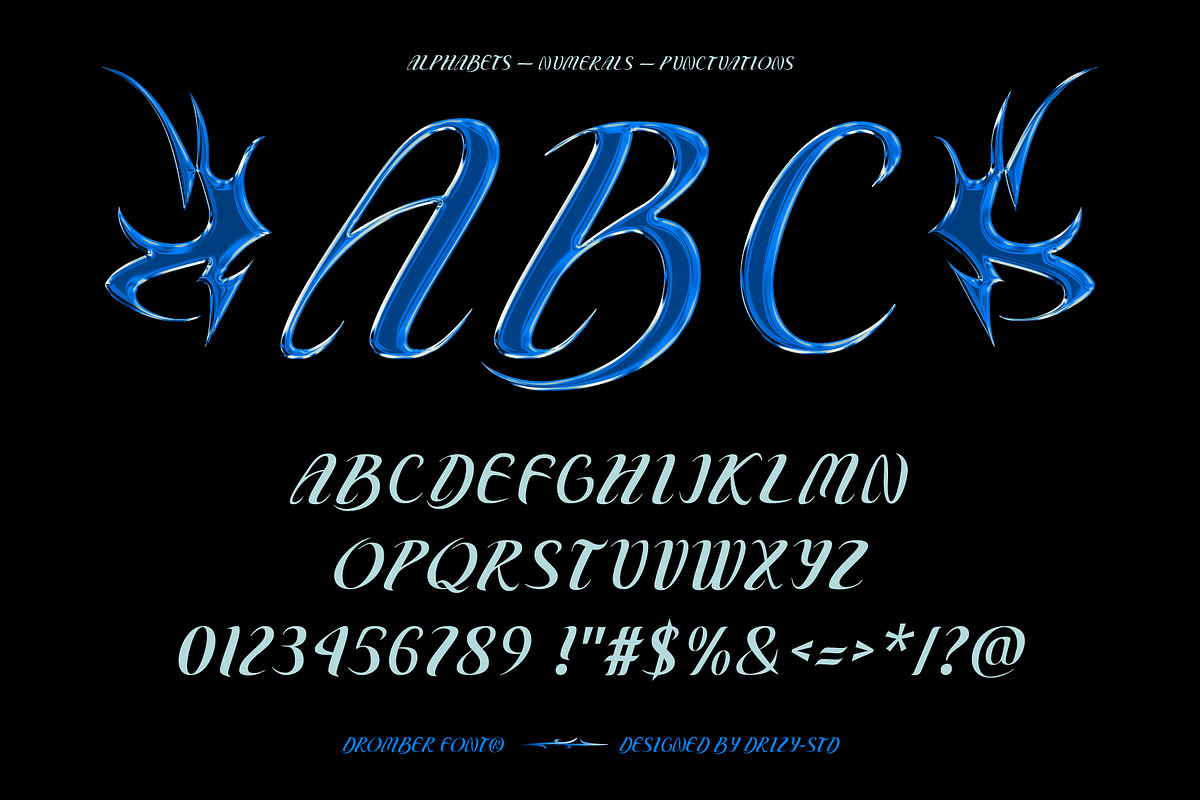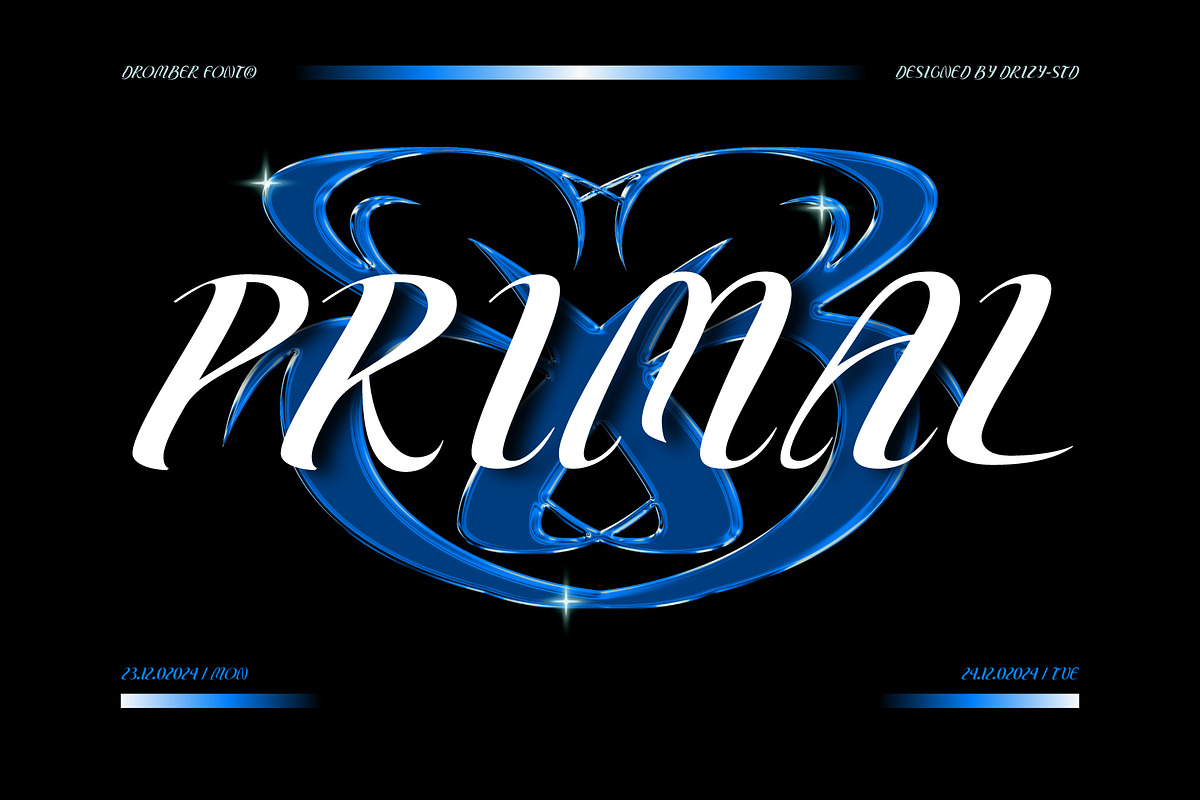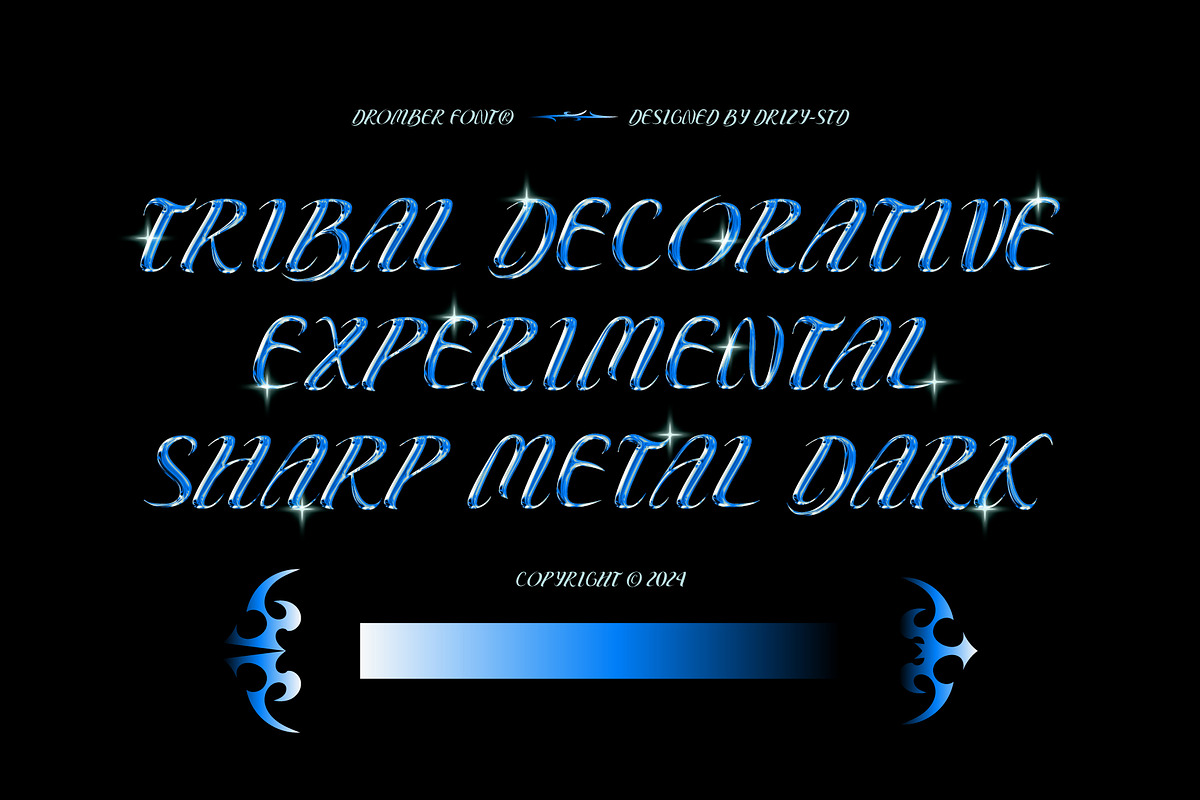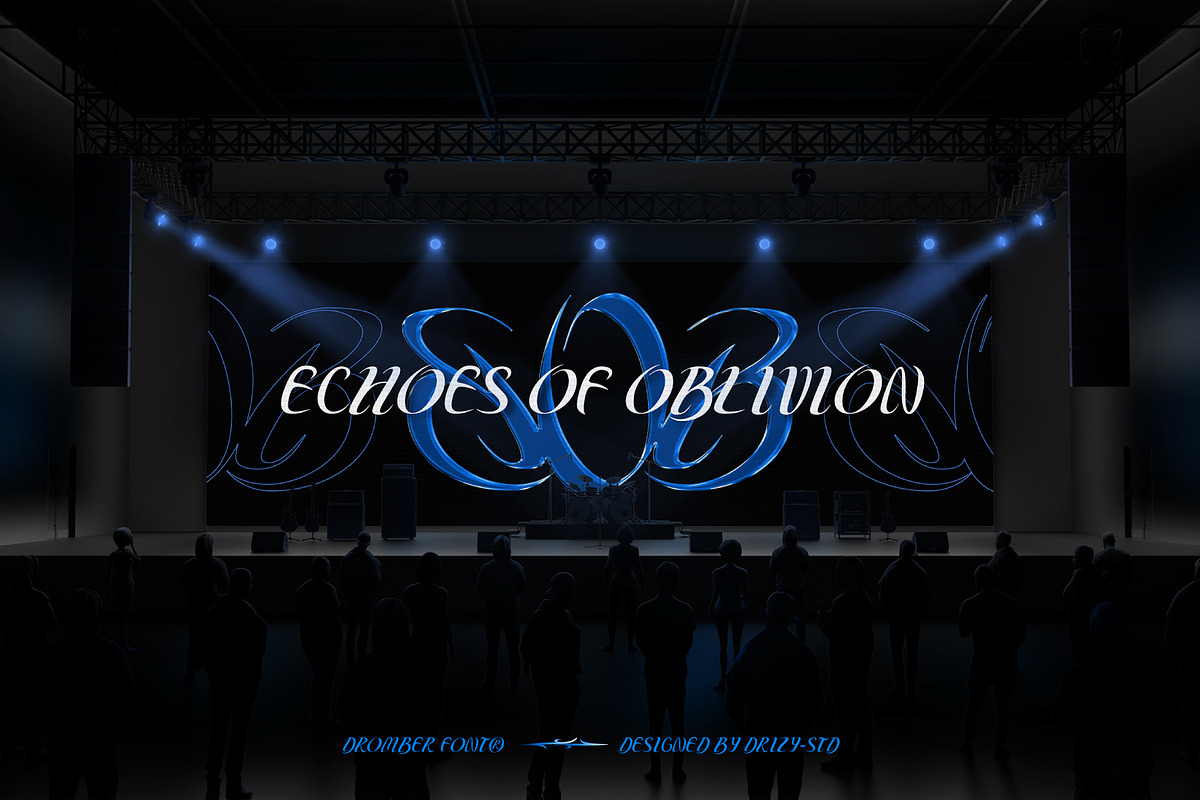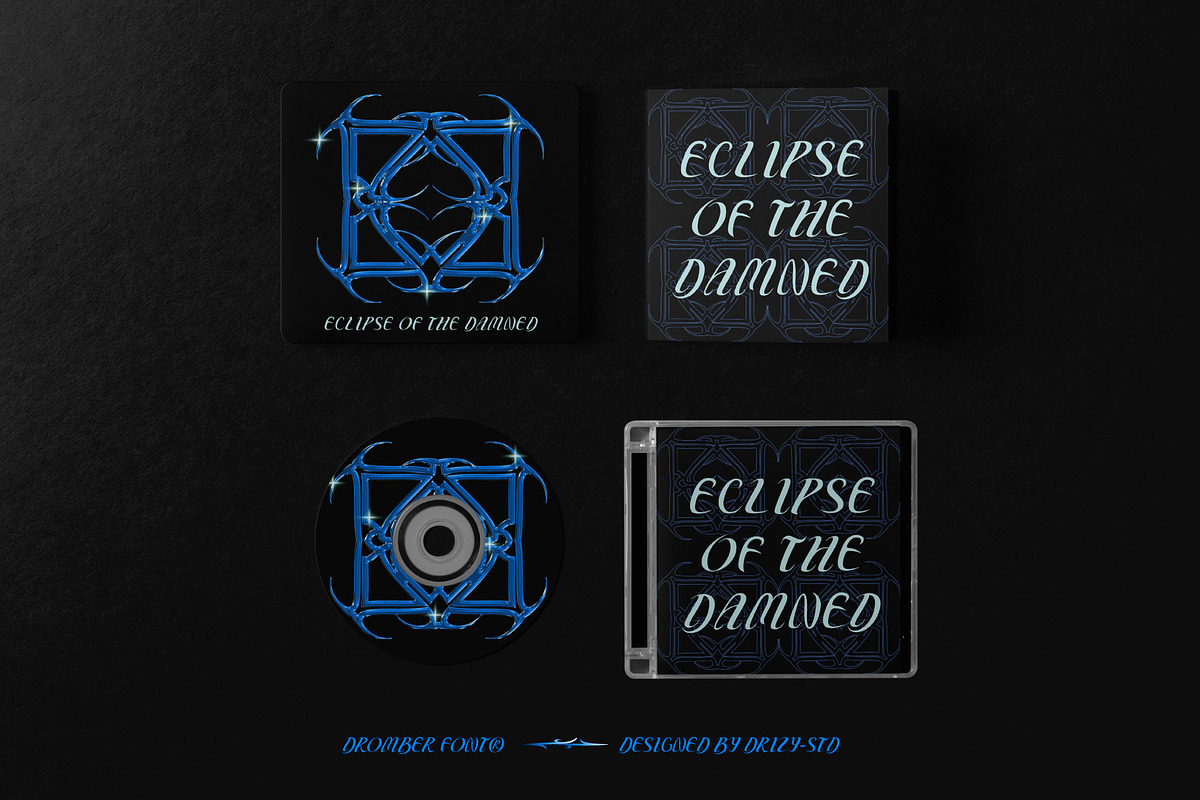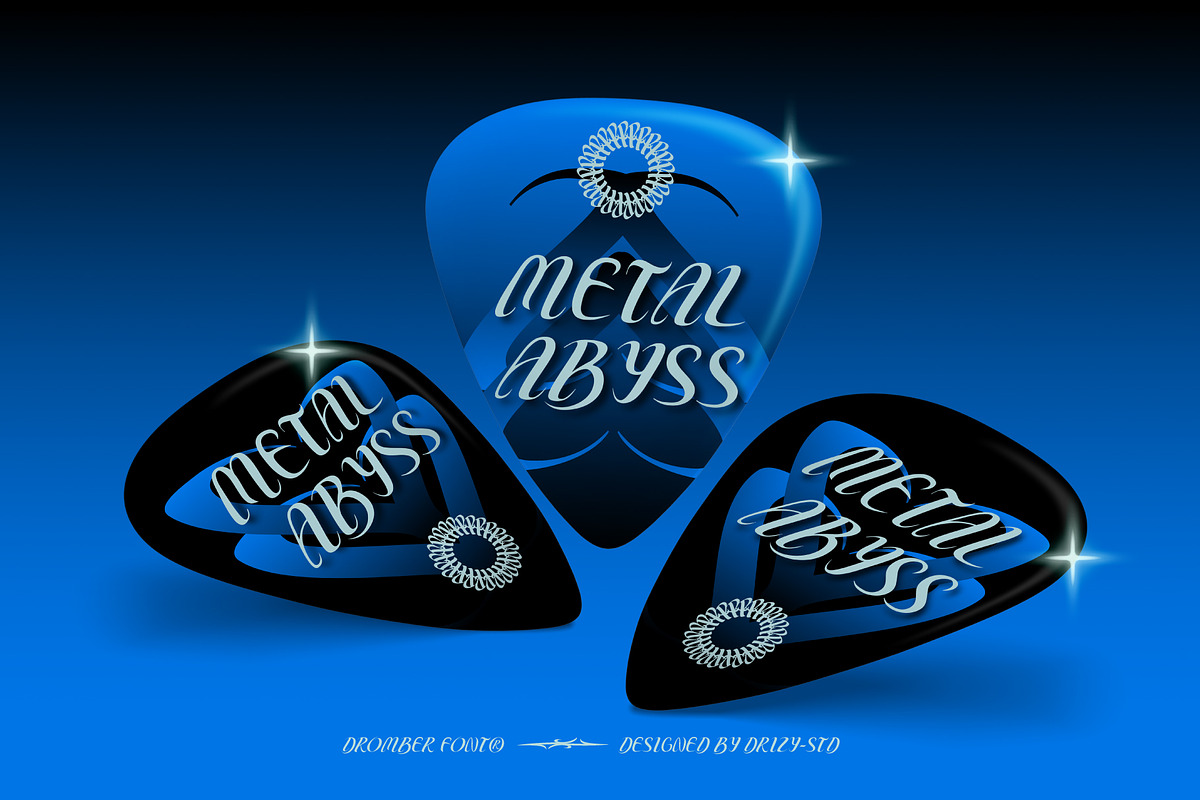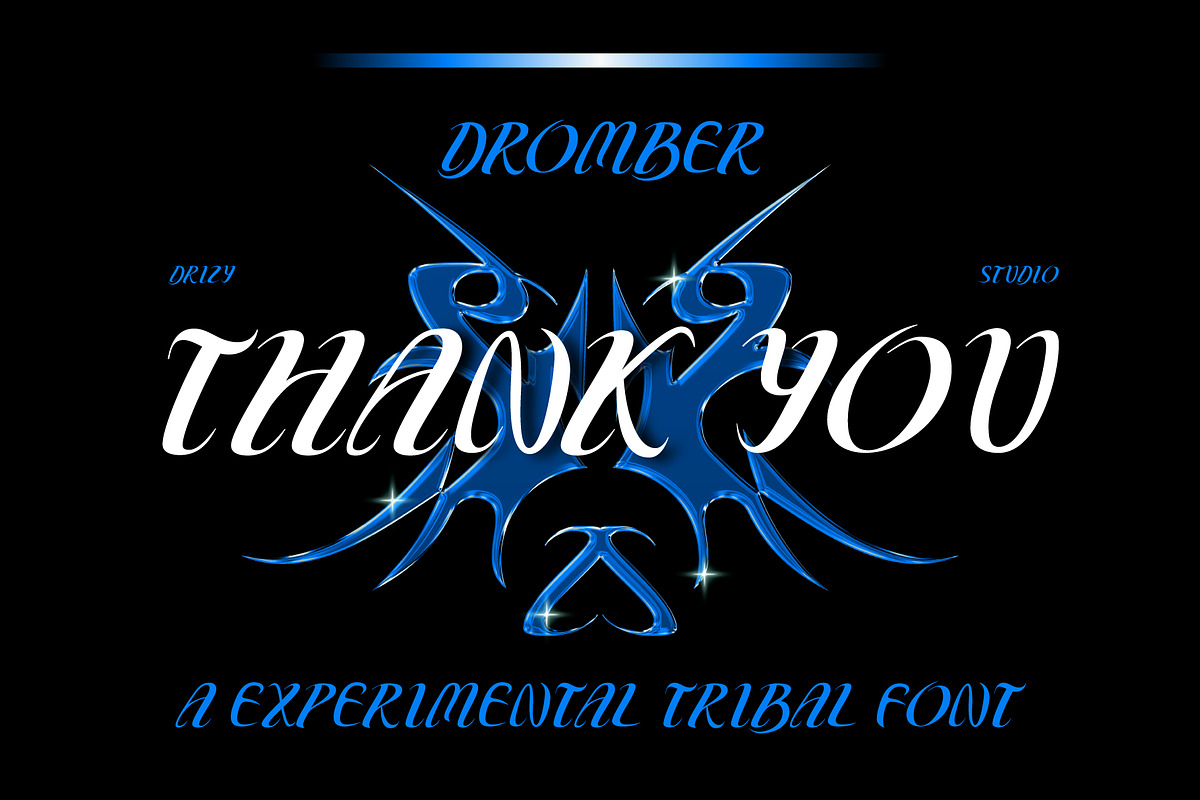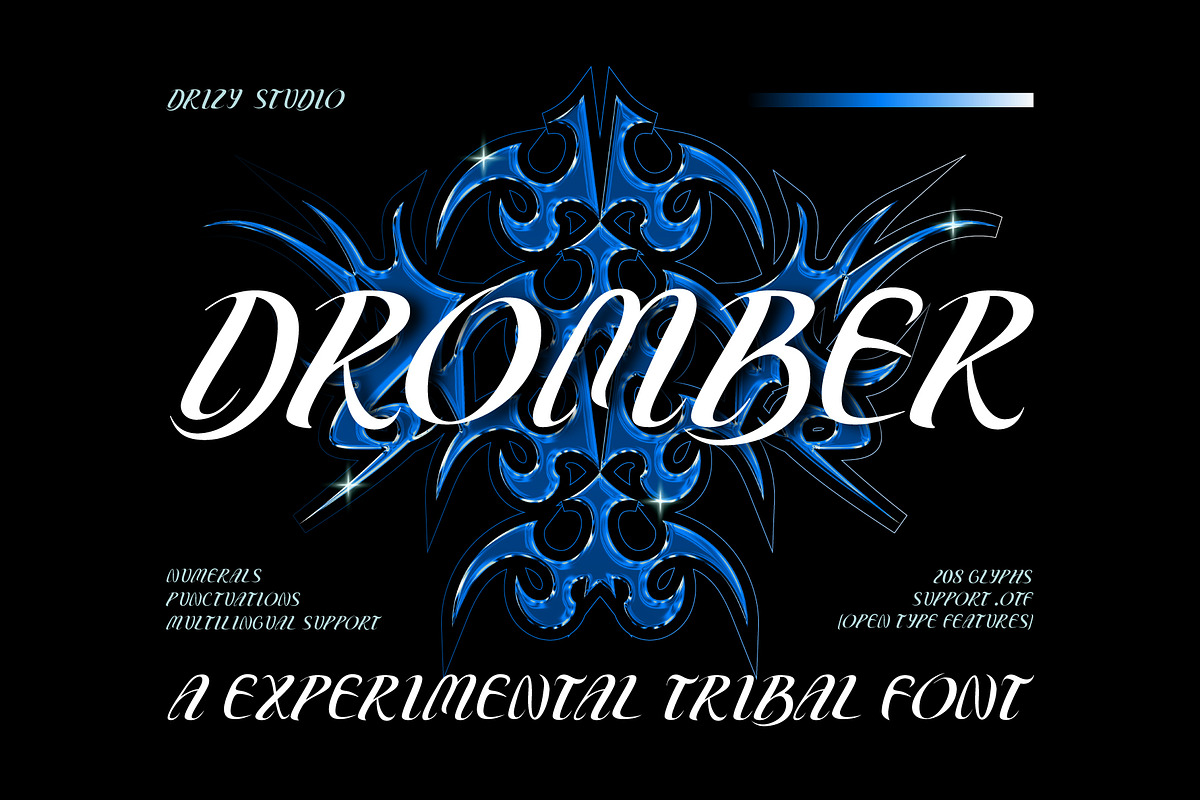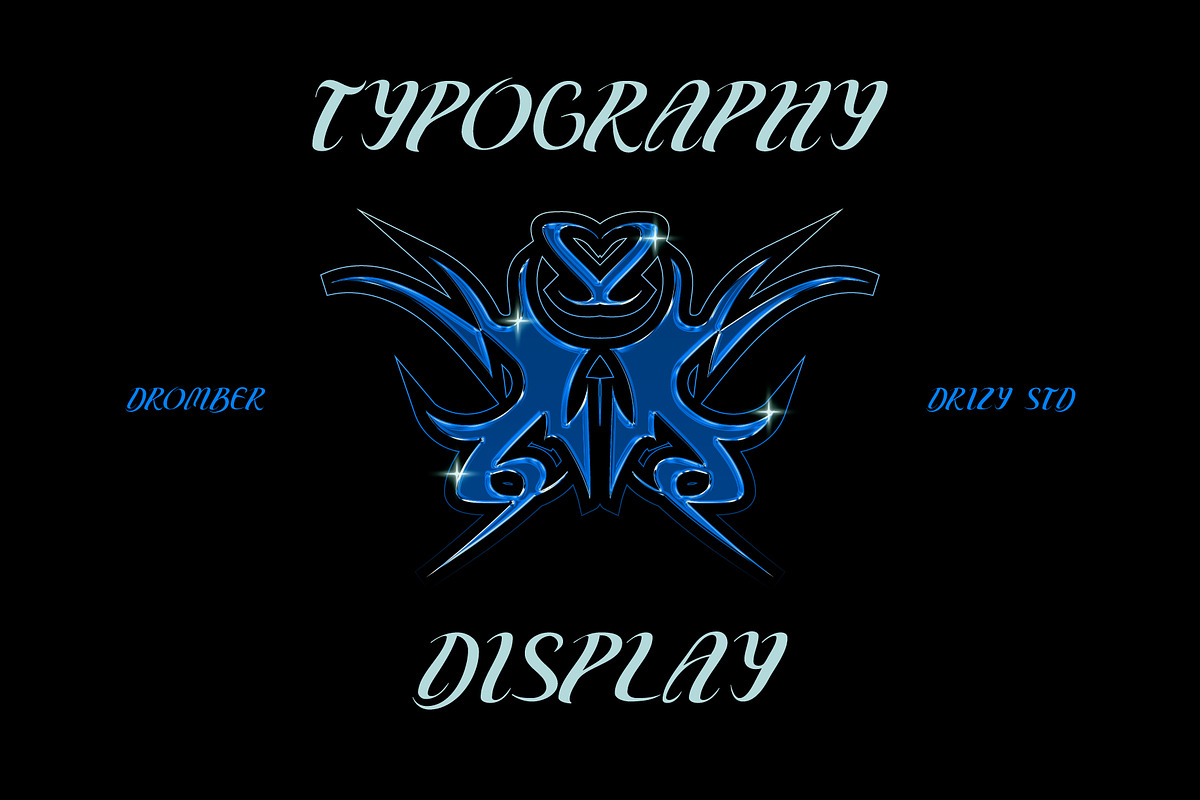
Dromber - Experimental Tribal Font
Dromber is an avant garde font inspired by tribal aesthetics and Dark Futuristic vibes. Perfectly crafted for the music industry, Dromber’s bold, experimental shapes fuse ancient traditions with cutting-edge design, creating an electrifying visual harmony. Whether it’s for album covers, festival posters, or edgy branding, Dromber captures the primal energy of beats and the mysterious allure of the unknown. It's intricate tribal-inspired patterns paired with a modern, tech-driven edge make it an exceptional choice for anyone daring to stand out. Unleash the power of Dromber and redefine your creative groove.
Dromber features:
- Character Set (All Caps)
- Punctuation & Numbers